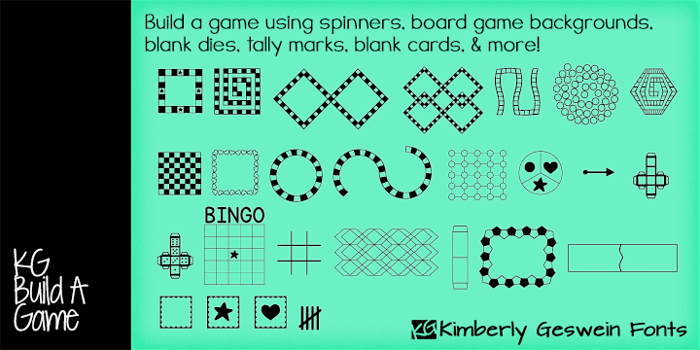
KG Build A Game Font
Build your own board game! This unique font contains lots of bits and pieces to put together your very own custom board game. Print the backgrounds large on cardstock and use the blank die outline to createa custom die! This is a great creativity builder for kids- let them create their own game with their own rules!